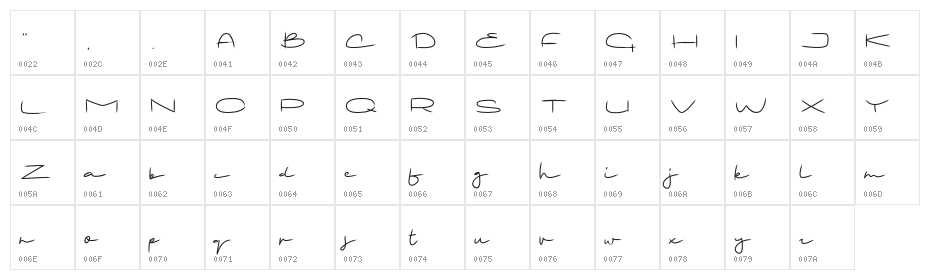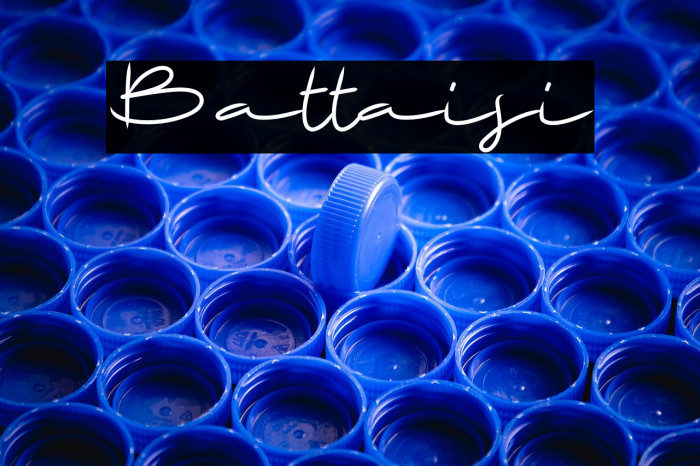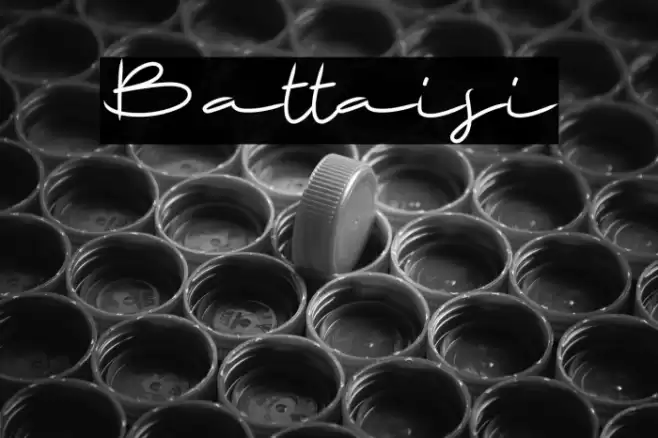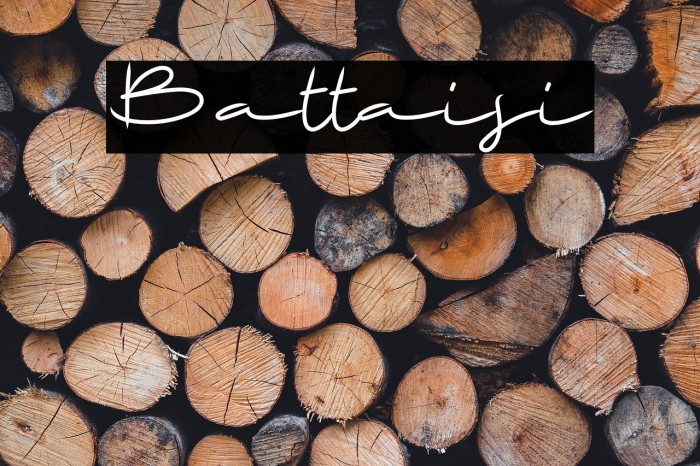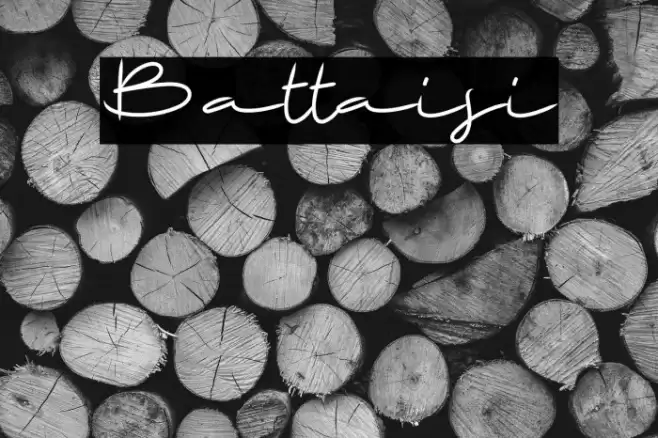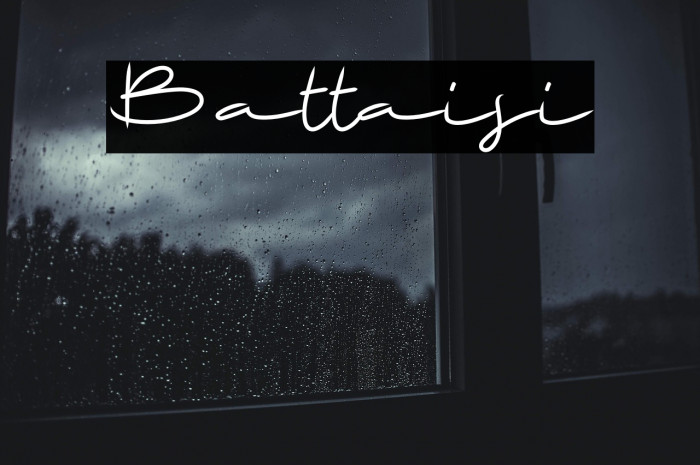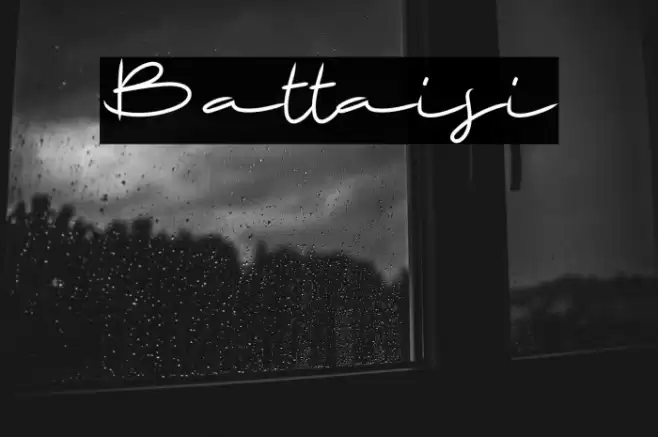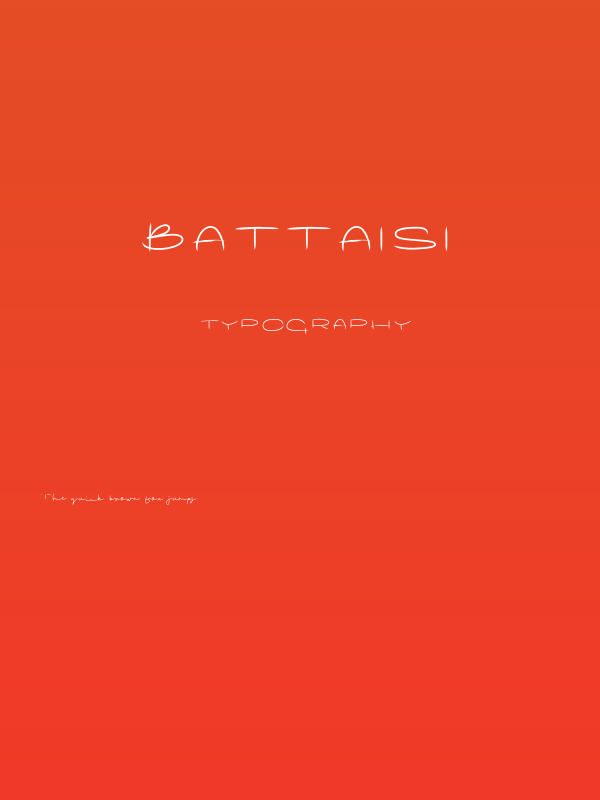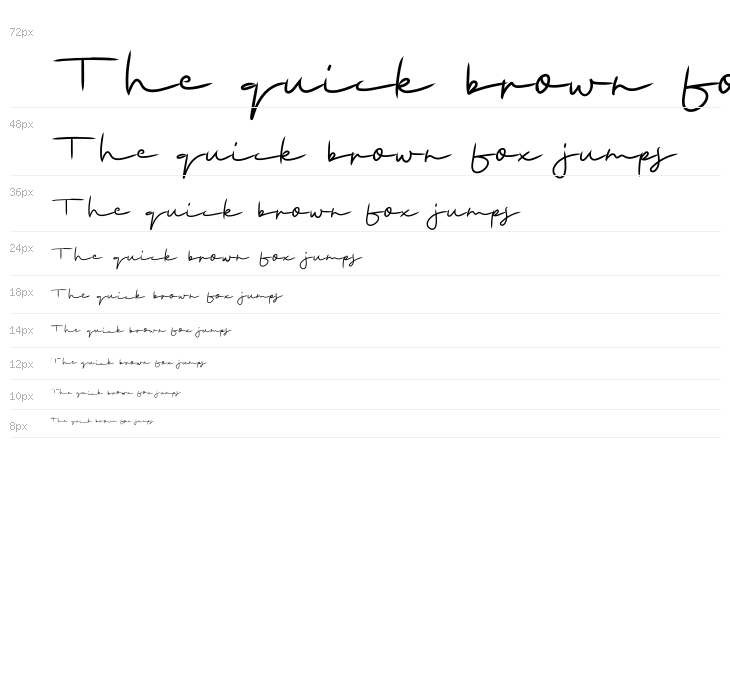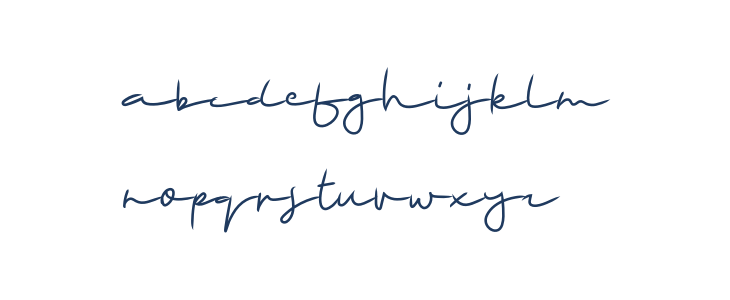
Battaisi Font
Battaisi Description
This font features a delicate and elegant handwritten style, characterized by its flowing and connected letterforms. The uppercase letters maintain a consistent height with subtle variations in stroke width, creating a graceful appearance. The lowercase letters are fluid and cursive, with smooth transitions between each character, enhancing the script-like quality. The overall design exudes a sense of sophistication and charm, making it suitable for projects that require a personal and artistic touch. The font's thin strokes and gentle curves contribute to its refined aesthetic, while the lack of special characters indicates a focus on simplicity and elegance.
| Overall Style | Elegant, Artistic |
| Proposed Projects | Ideal for wedding invitations, greeting cards, personal branding, and artistic projects. |